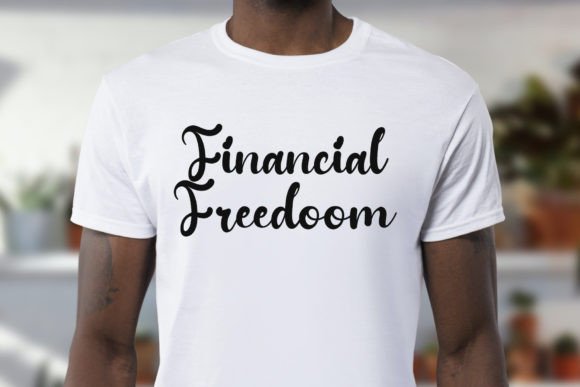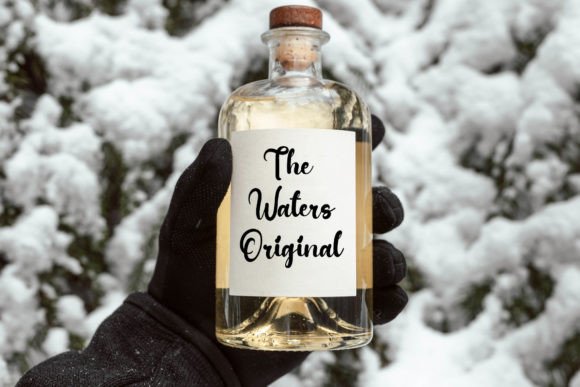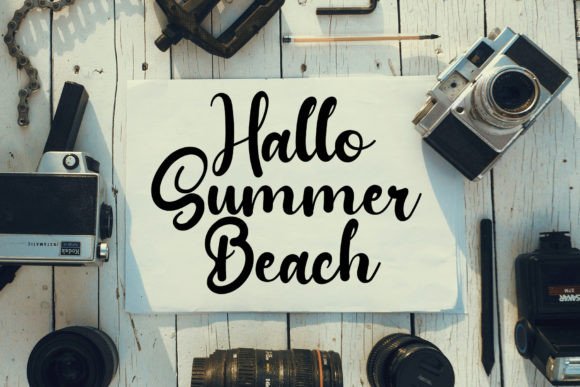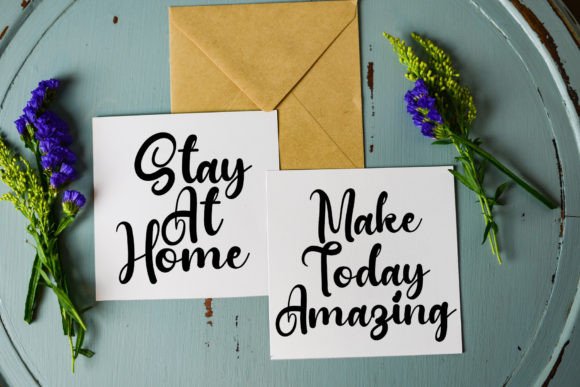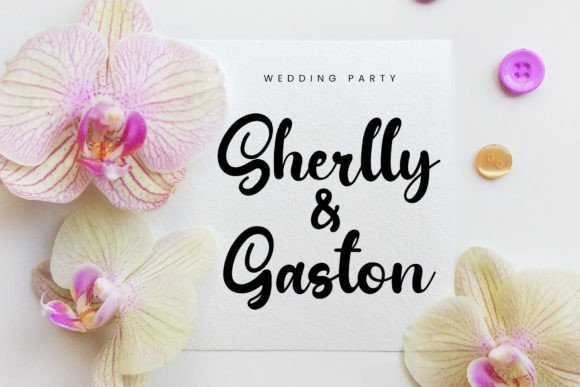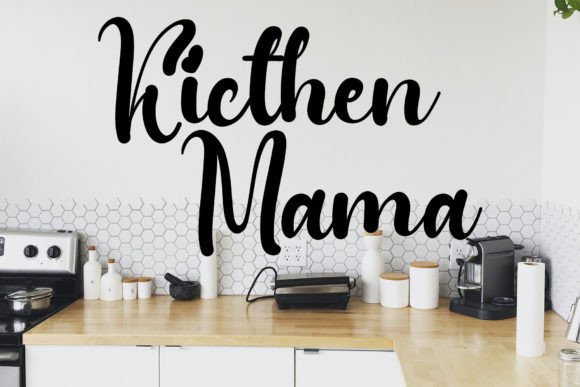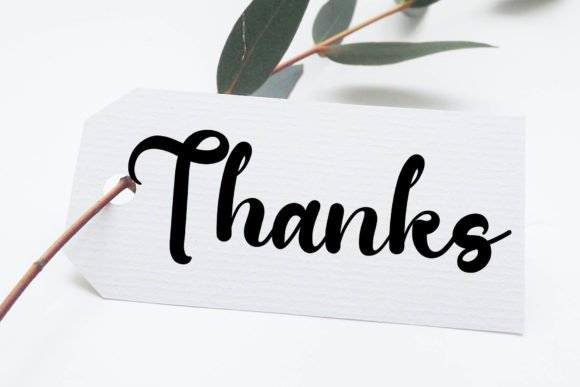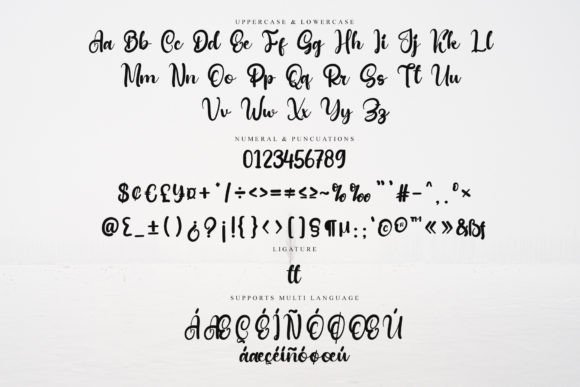
Second Font
About Second Font
Second is more than just a font; it’s a sweet and cursive handwritten signature script that brings a delightful touch to your creative projects. With its gentle and romantic design, Second looks gorgeous on a variety of design ideas, adding a joyful and elegant touch to each of your projects. Tailored for branding, logos, wedding materials, greeting cards, fashion, and more, Second is the perfect choice for an elegant yet casual look.
The sweetness of Second is evident in its cursive and handwritten style. The flowing script adds a personal and authentic feel to the text, making it suitable for projects that aim to convey warmth and a touch of romance. Second becomes more than just words; it becomes a visual expression of joy and elegance.
The gentle and romantic touch of Second makes it particularly well-suited for branding and logos. Whether you’re establishing a brand identity or creating a logo that reflects elegance, Second contributes to a sophisticated and casual look. It ensures that your brand communicates a sense of style and approachability.
In wedding-related projects, Second shines as a signature script font. Its romantic and elegant qualities make it a perfect fit for wedding invitations, place cards, and other materials. Second adds a touch of romance to each element, enhancing the overall aesthetic of wedding-related designs.
Greeting cards benefit from the joyful and elegant nature of Second. Whether used for special occasions or everyday expressions of love, the font brings a personalized and heartfelt touch to the messages. Second becomes a key element in conveying emotions through written words.
Fashion-related projects also find an ideal companion in Second. The font’s casual yet elegant look adds a stylish flair to fashion branding, labels, and promotional materials. Second ensures that your fashion-related designs exude a sense of sophistication.
In summary, Second is more than just a font; it’s a design tool that adds a sweet and cursive handwritten signature to your creative projects. Its joyful and romantic touch, coupled with its versatility, makes it a perfect fit for a wide range of design applications, allowing you to create projects that are both elegant and visually captivating.